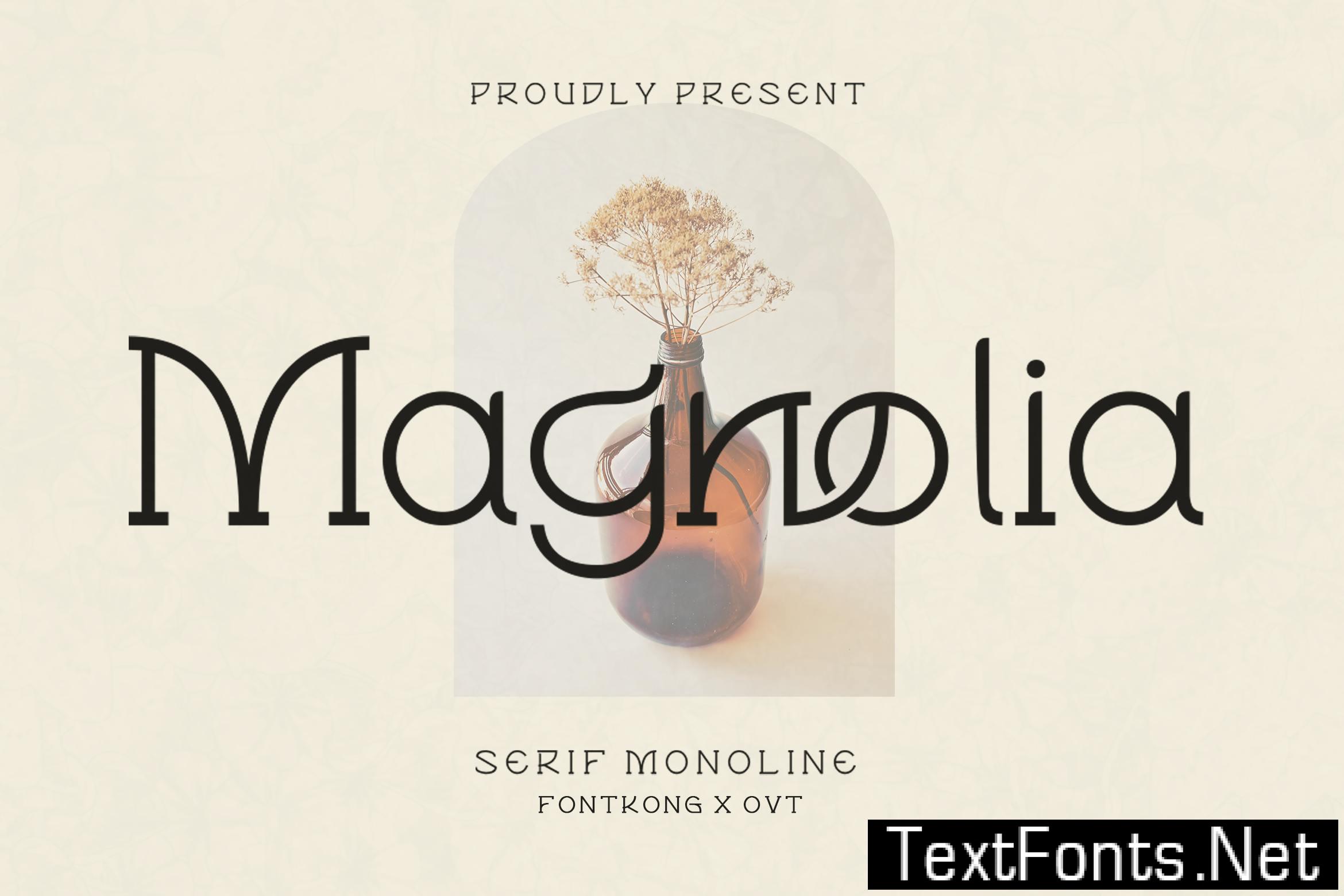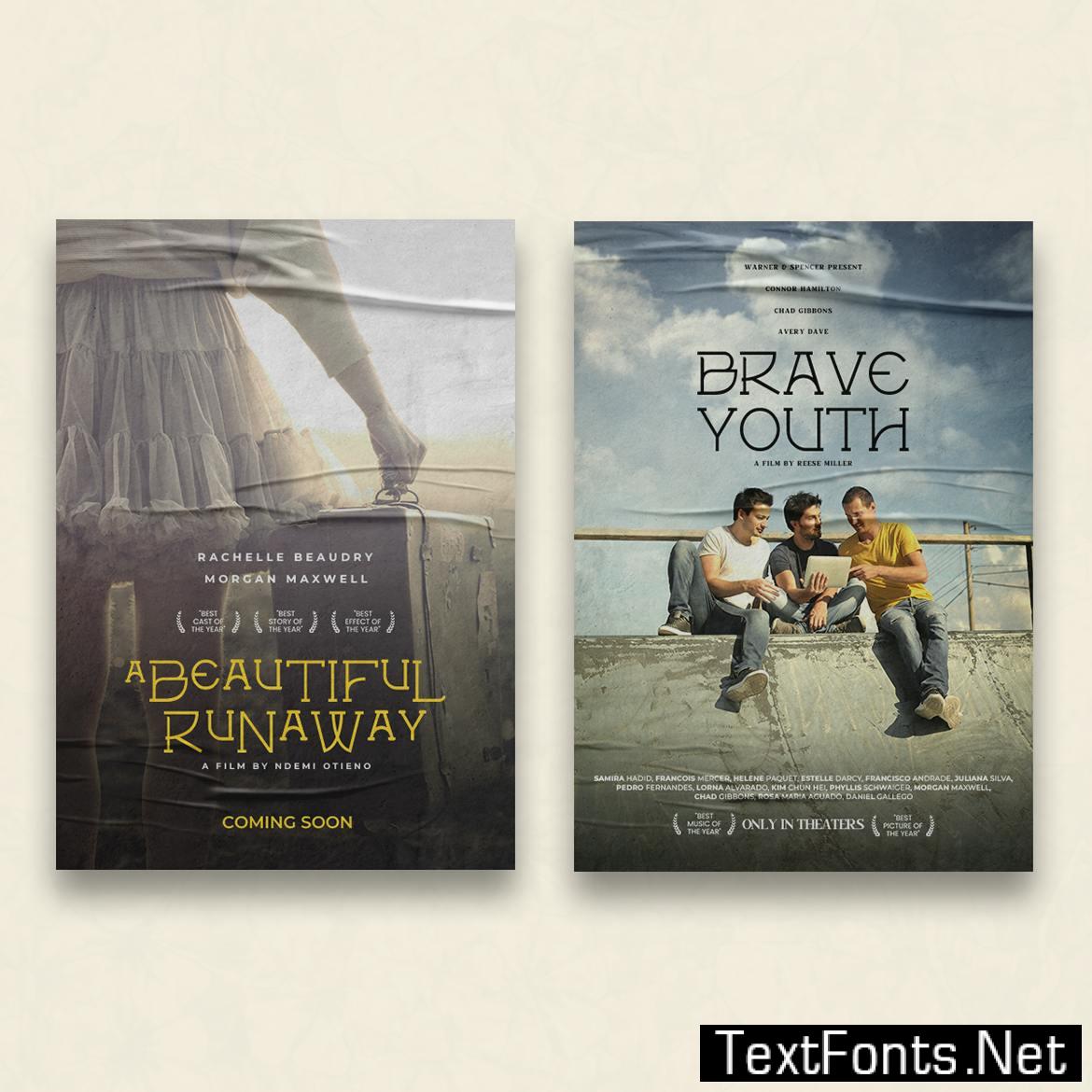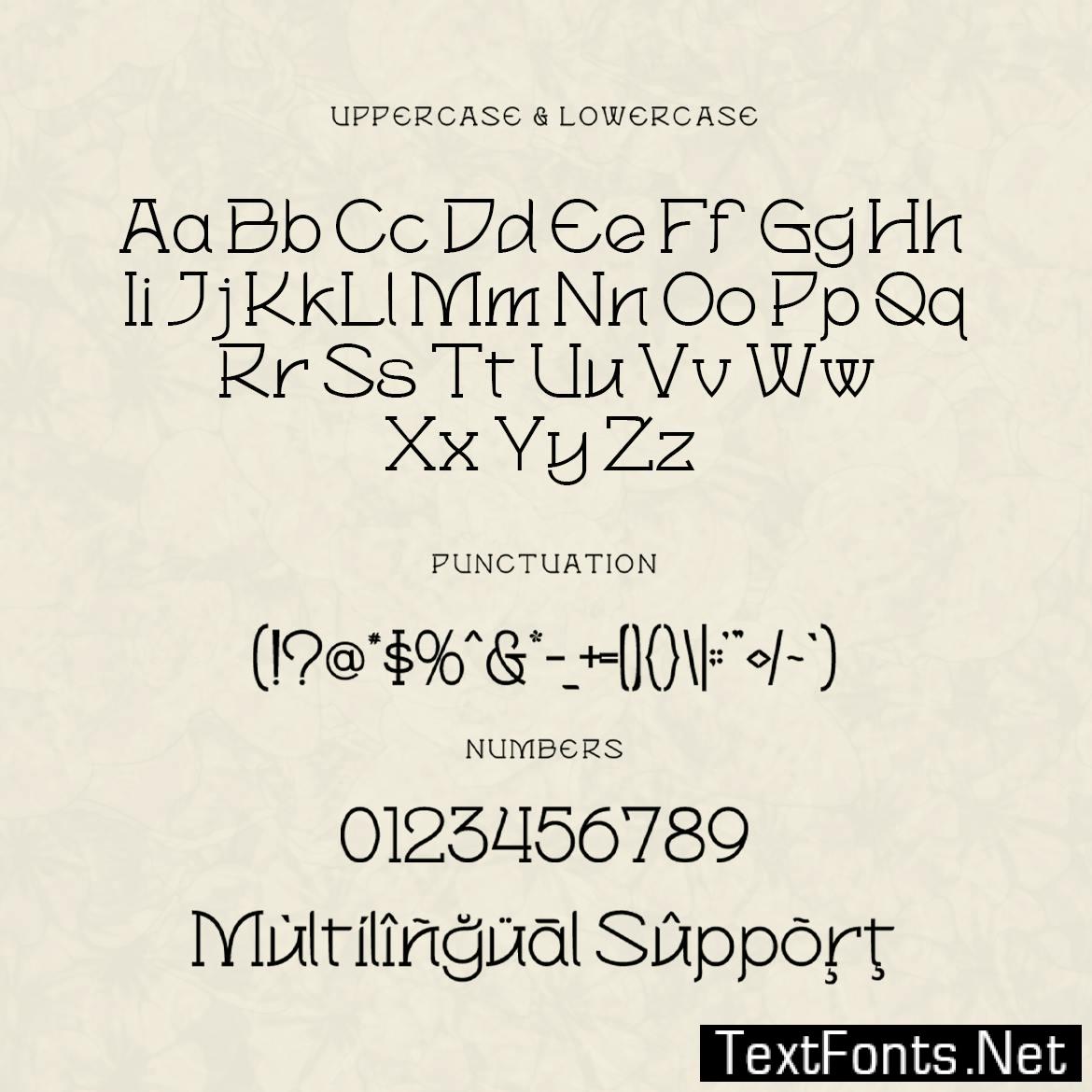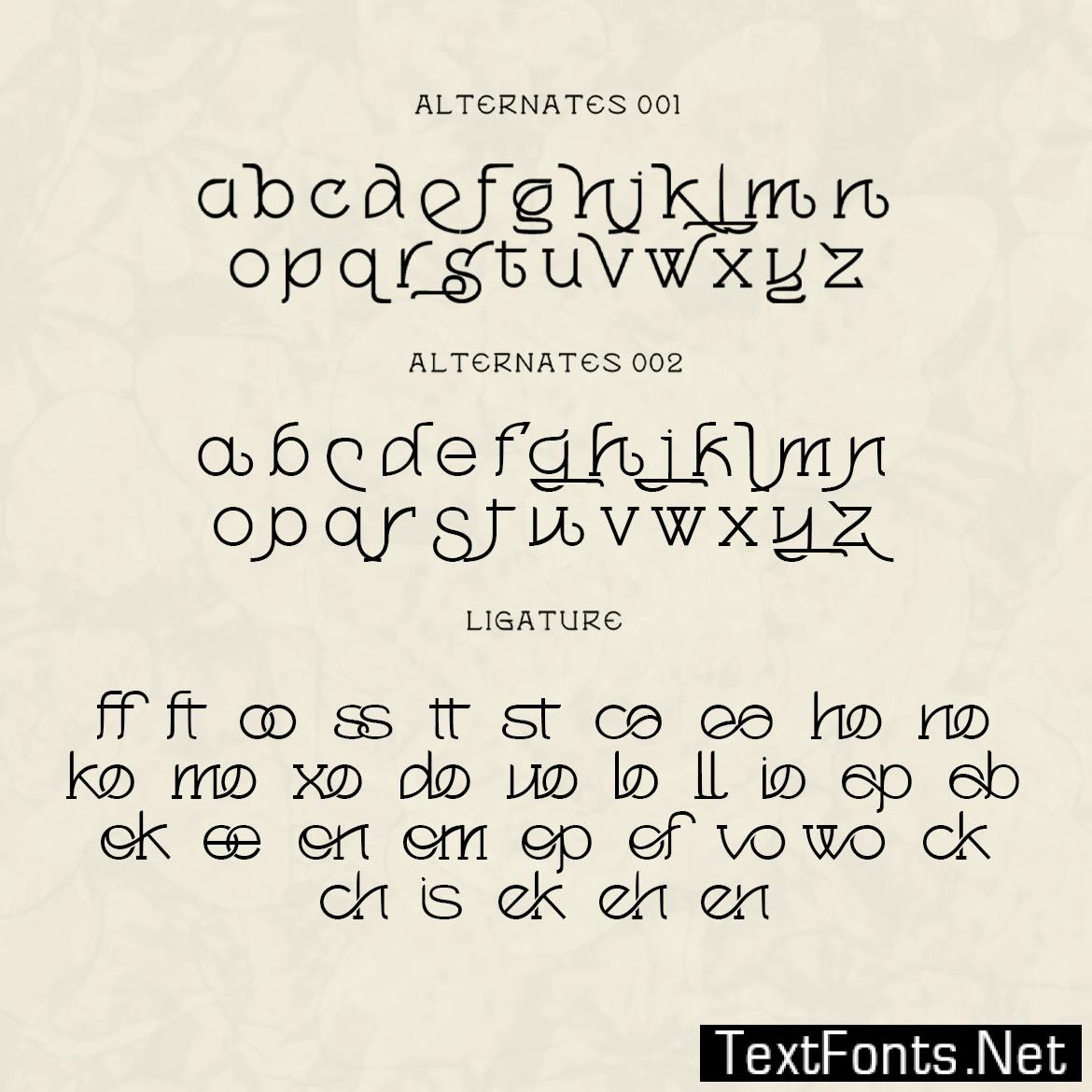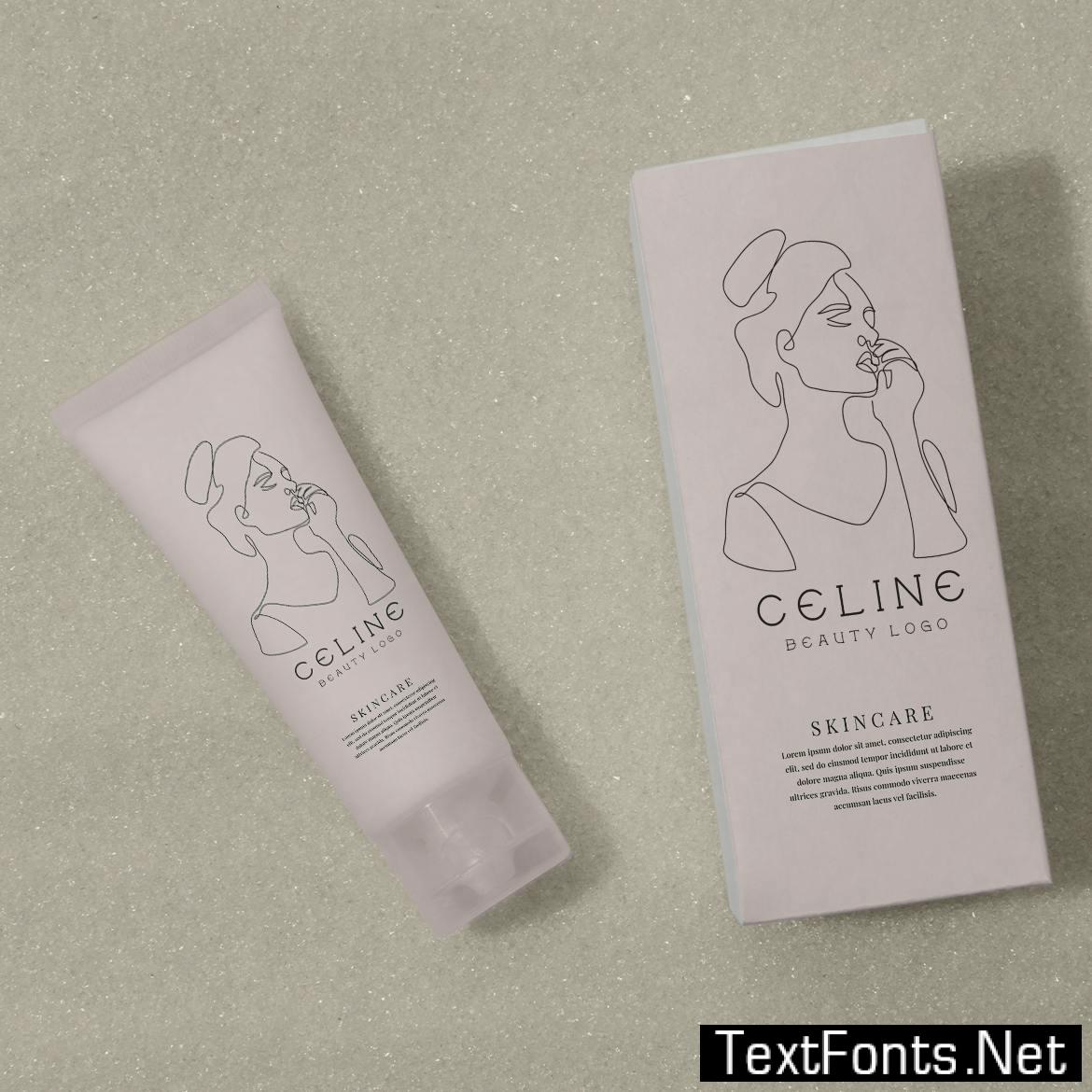
**Magnolia – Serif Font Monoline**
Introducing “Magnolia,” a serene and subtle monoline serif font that brings a touch of elegance to any design. Perfect for those who desire a sleek, streamlined typeface with a uniform stroke, Magnolia is especially suited for minimalist branding, clean web design, and sophisticated print materials.
Magnolia’s refined appearance is characterized by its consistent line weight and gentle serifs, offering a modern twist on traditional serif fonts. This typeface provides excellent readability and a classy aesthetic that enhances logos, headings, and text bodies alike. It’s a versatile choice for everything from boutique branding to personal blog designs, providing a professional yet approachable look.
The font package includes a comprehensive set of characters, including uppercase and lowercase letters, numerals, punctuation, and support for multiple languages, making it a practical option for a wide range of creative projects. Whether you’re crafting elegant invitations, developing stylish packaging, or updating your business’s visual identity, Magnolia ensures your designs resonate with simplicity and style.
Magnolia is the ideal serif monoline font for designers who value clarity and refined aesthetics in their typography.